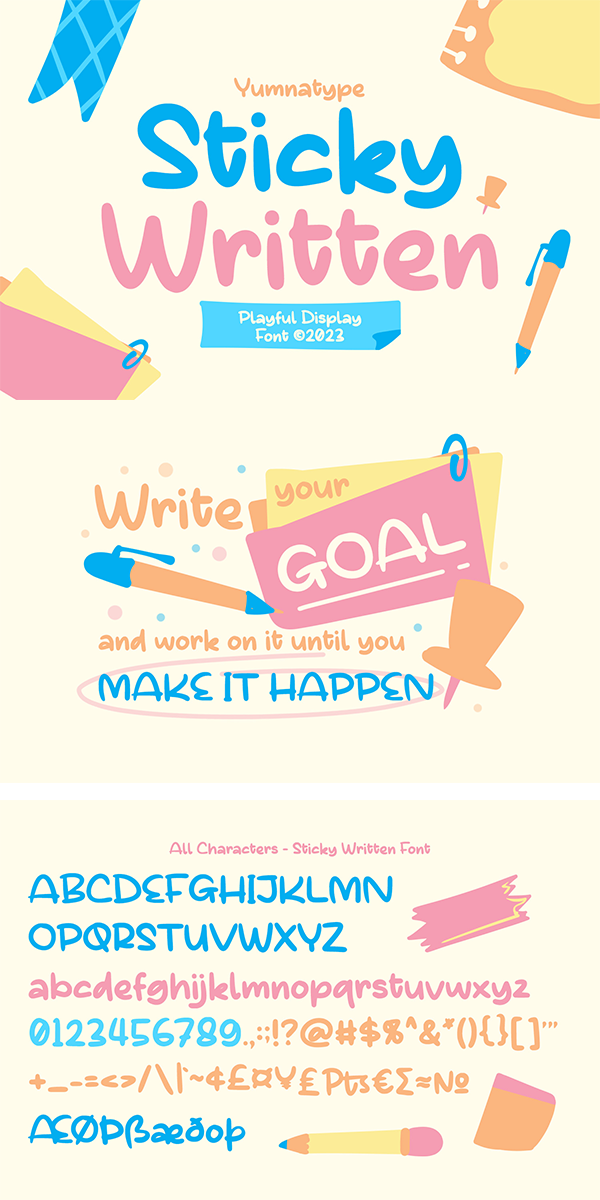
Sticky Written Font
About Sticky Written
Sticky Written is a round, soft display font expressing funny, cute, fun nuances in every design. The letters look like soap bubbles flying around in the air in flowing shapes and balanced proportions. The Sticky Written font will live up and charm your designs in order to suggest positive and cute vibes to your target audience. You can apply this font, which provides a clipart as a bonus, for big text sizes to make it more legible and attractive. In addition, you can make use of some available features here.)
Sticky Written fits best for various design projects, such as brandings, headings, magazine covers, quotes, printed products, merchandise, social media, etc. Find out more ways to use this font by taking a look at the font preview.